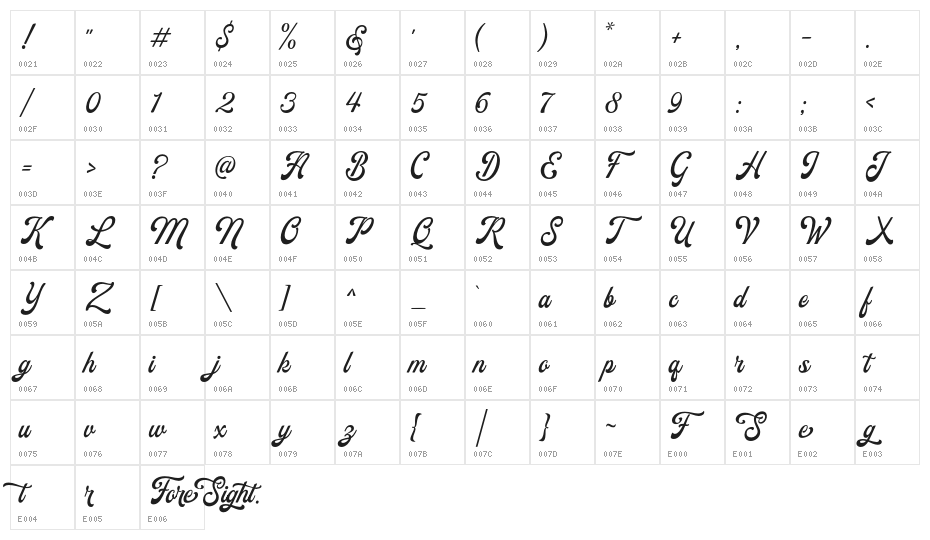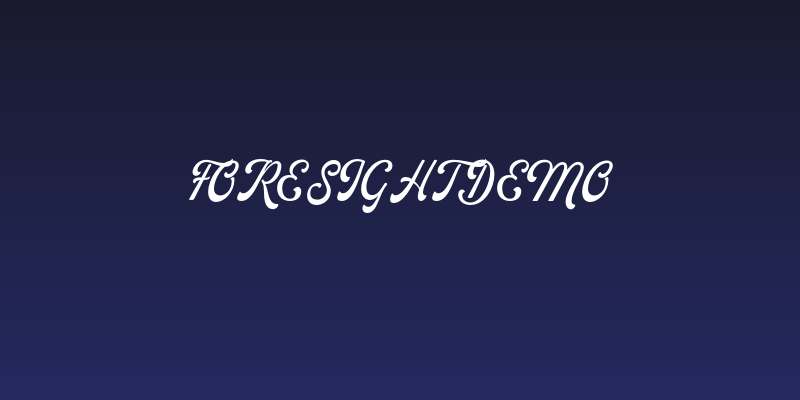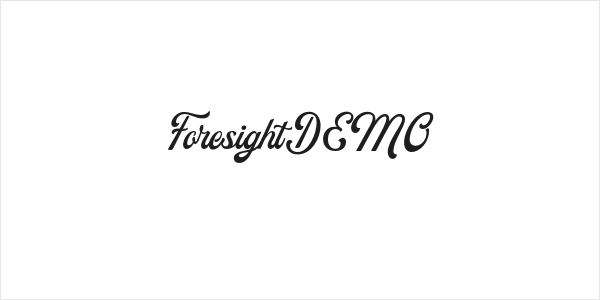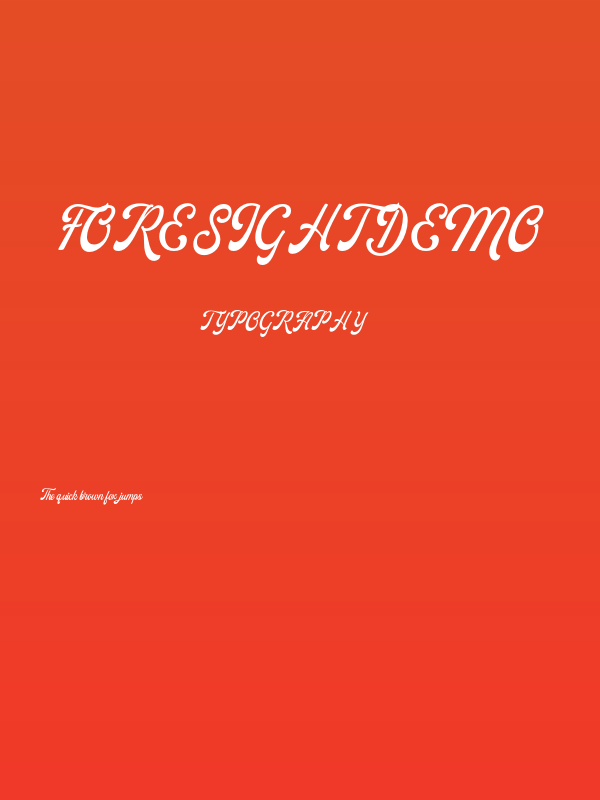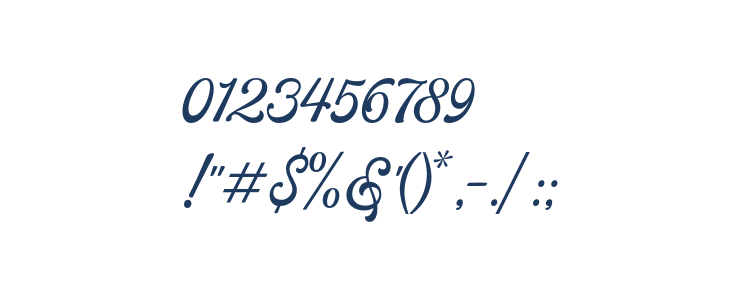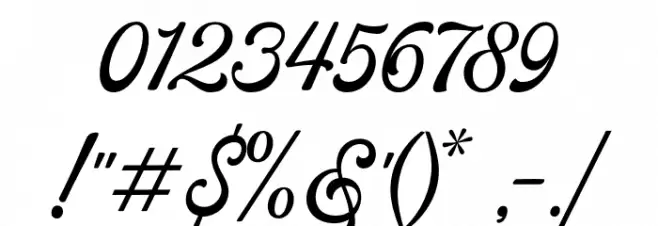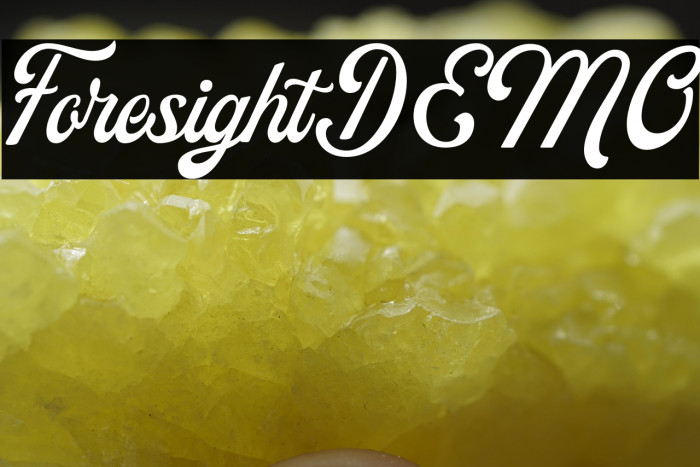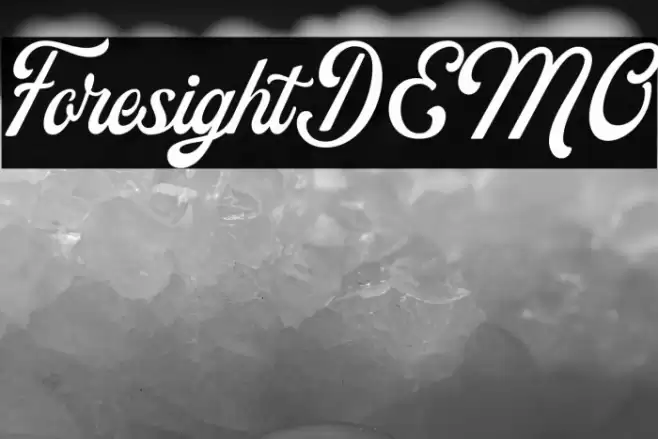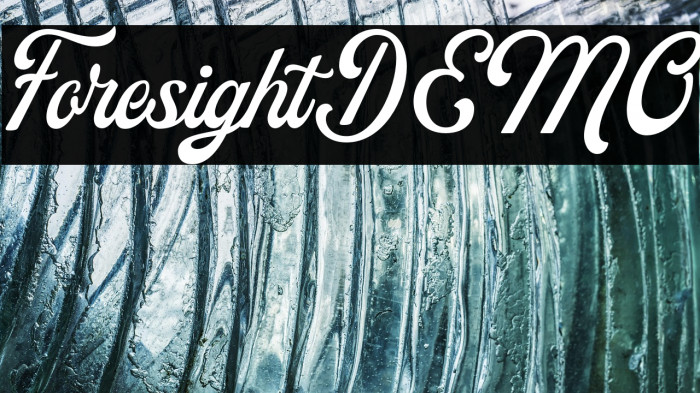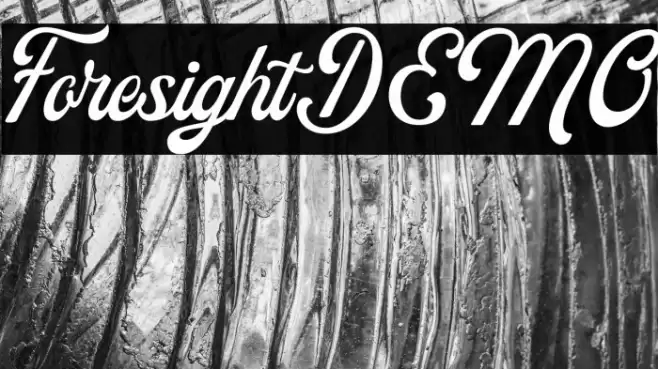
ForesightDEMO Font
ForesightDEMO Description
This elegant script font features a flowing, cursive style with smooth, connected letters that evoke a sense of sophistication and grace. The uppercase letters are bold and slightly slanted, with intricate loops and swirls that add a decorative touch. The lowercase letters maintain a consistent flow, enhancing readability while preserving the font's artistic flair. Numbers and special characters are designed to complement the overall aesthetic, ensuring a cohesive look across all text elements. The font's high contrast between thick and thin strokes further emphasizes its refined appearance, making it suitable for a variety of creative applications.
| Use Case | Headlines, Invitations, Branding |
| Proposed Projects | Ideal for wedding invitations, elegant branding, greeting cards, and decorative headlines. |